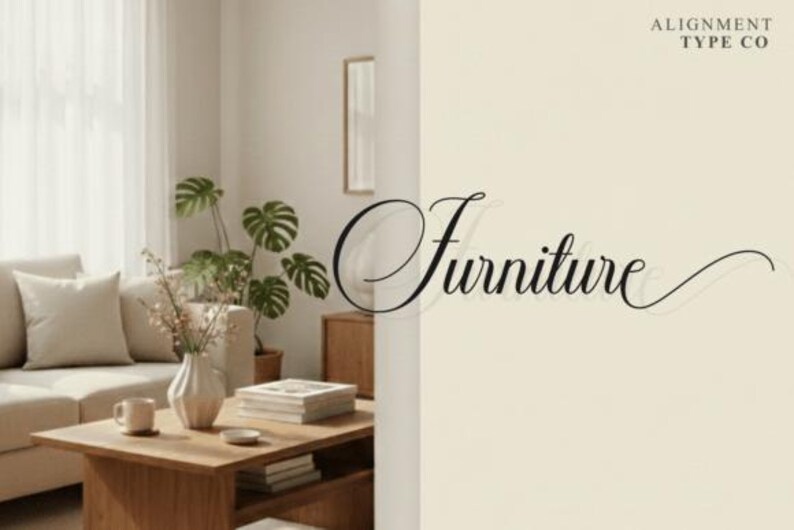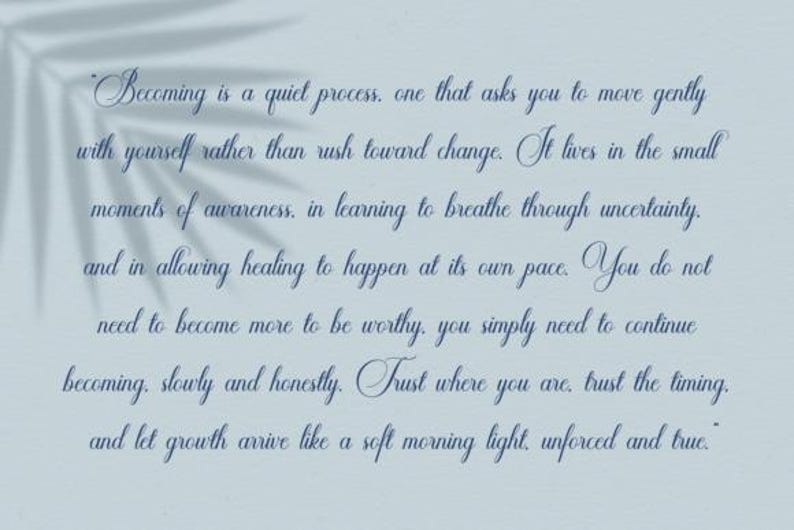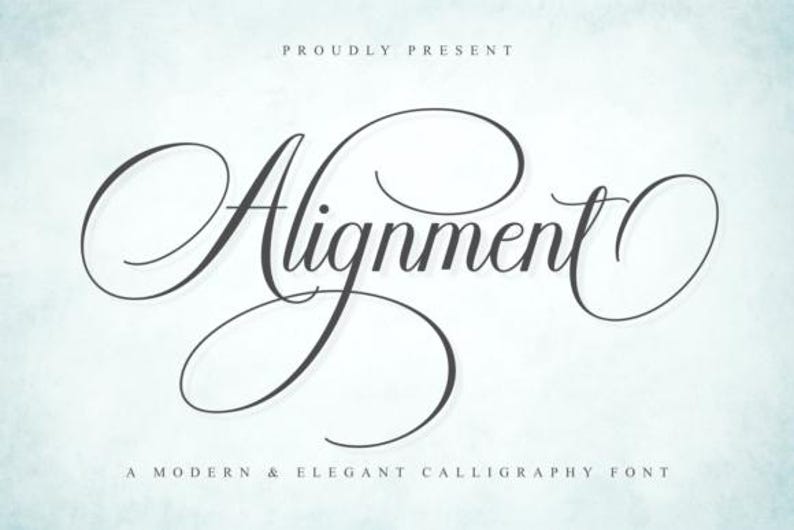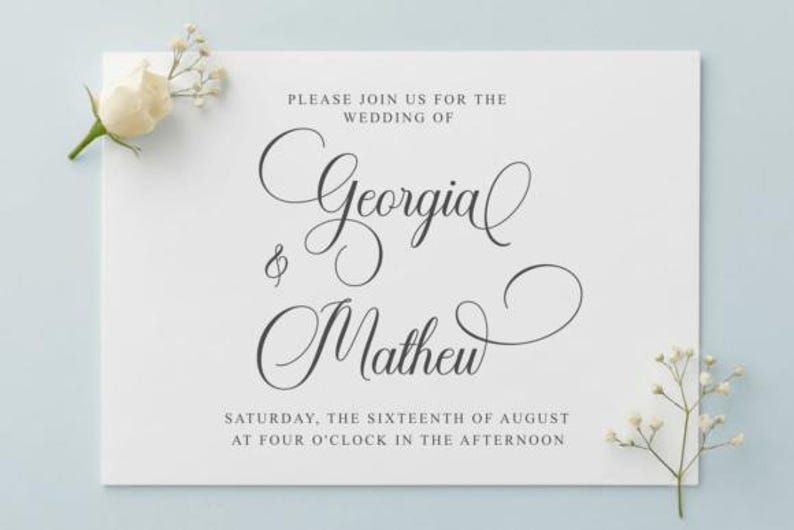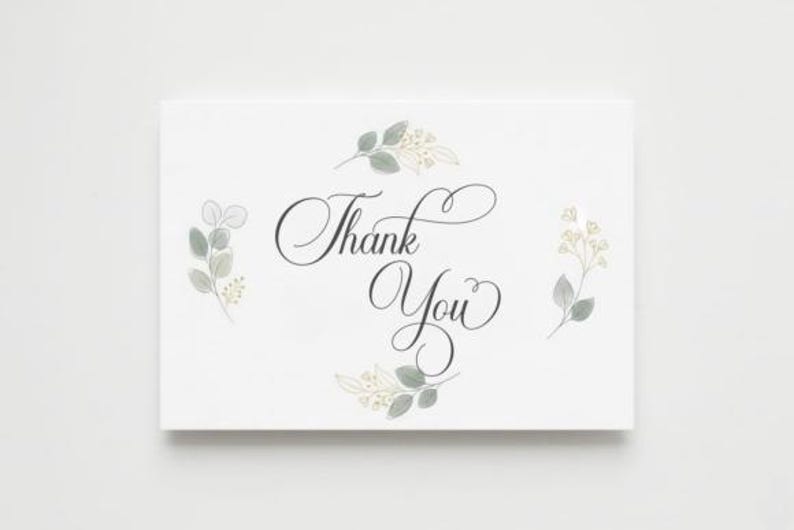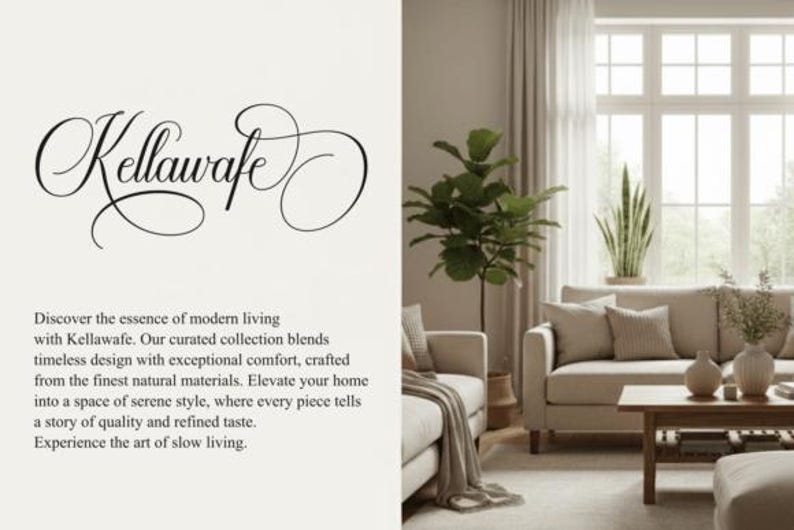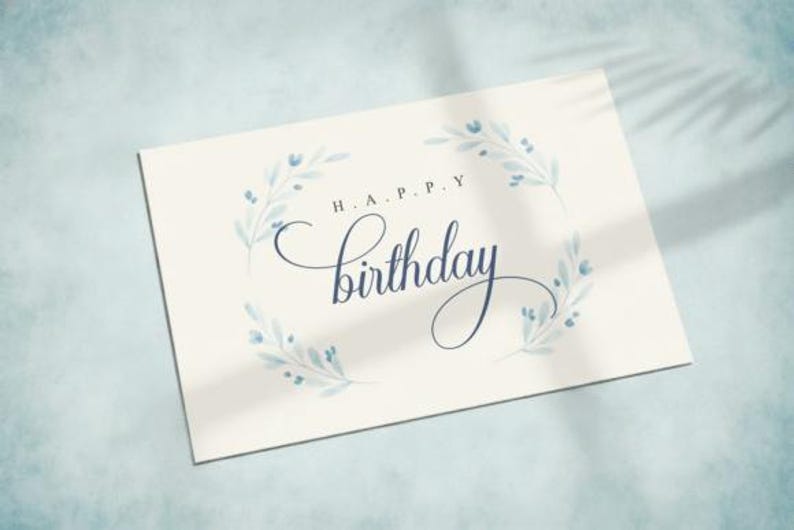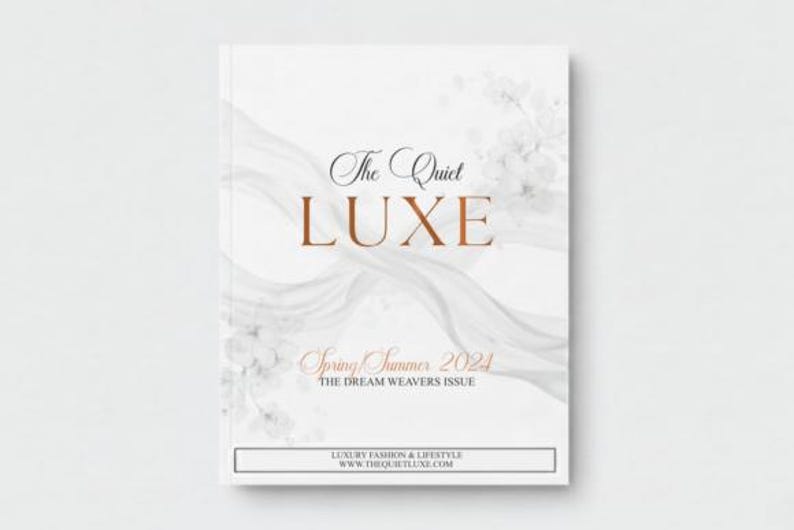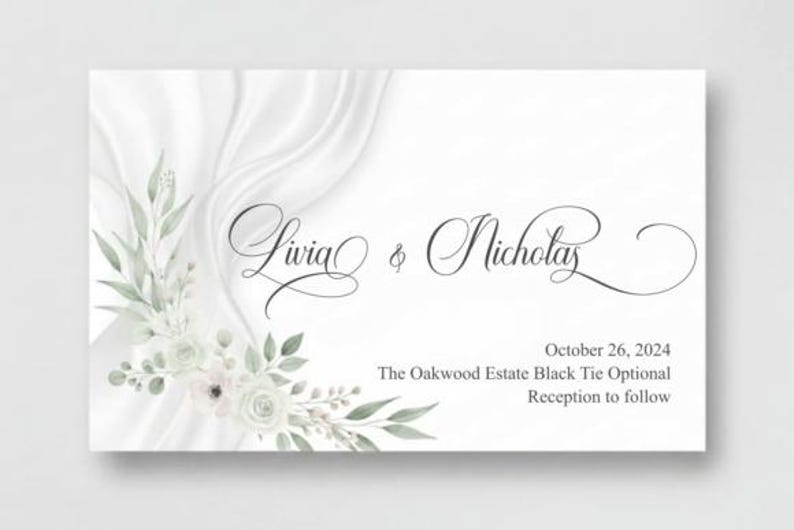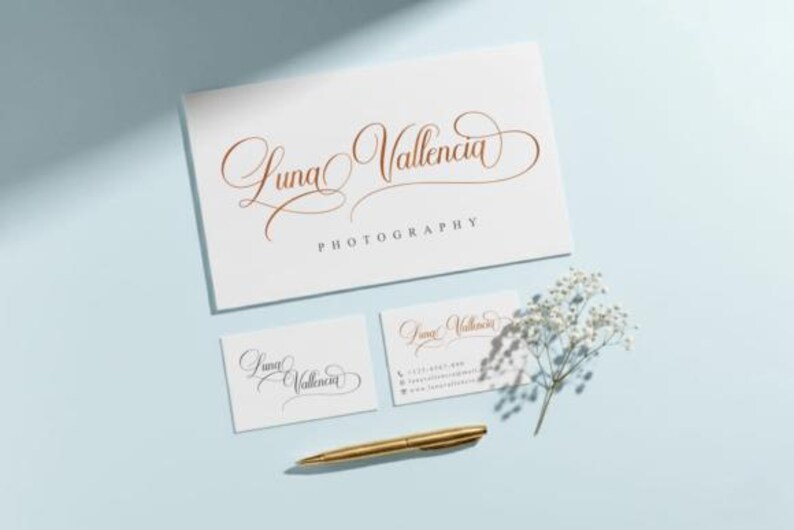
Alignment Script Font
Alignment is a modern calligraphy script font featuring elegant swashes, smooth handwritten strokes, and beautifully flowing letterforms. Designed to look stylish, feminine, and luxurious, it’s perfect for branding, logos, wedding invitations, social media graphics, quotes, and fashion or beauty designs. Its balanced contrast and clean readability make it ideal for both digital and print projects. The font is PUA-encoded, allowing easy access to all glyphs and swashes without additional software. Compatible with Windows, Mac, and Linux systems and easily convertible to webfont use